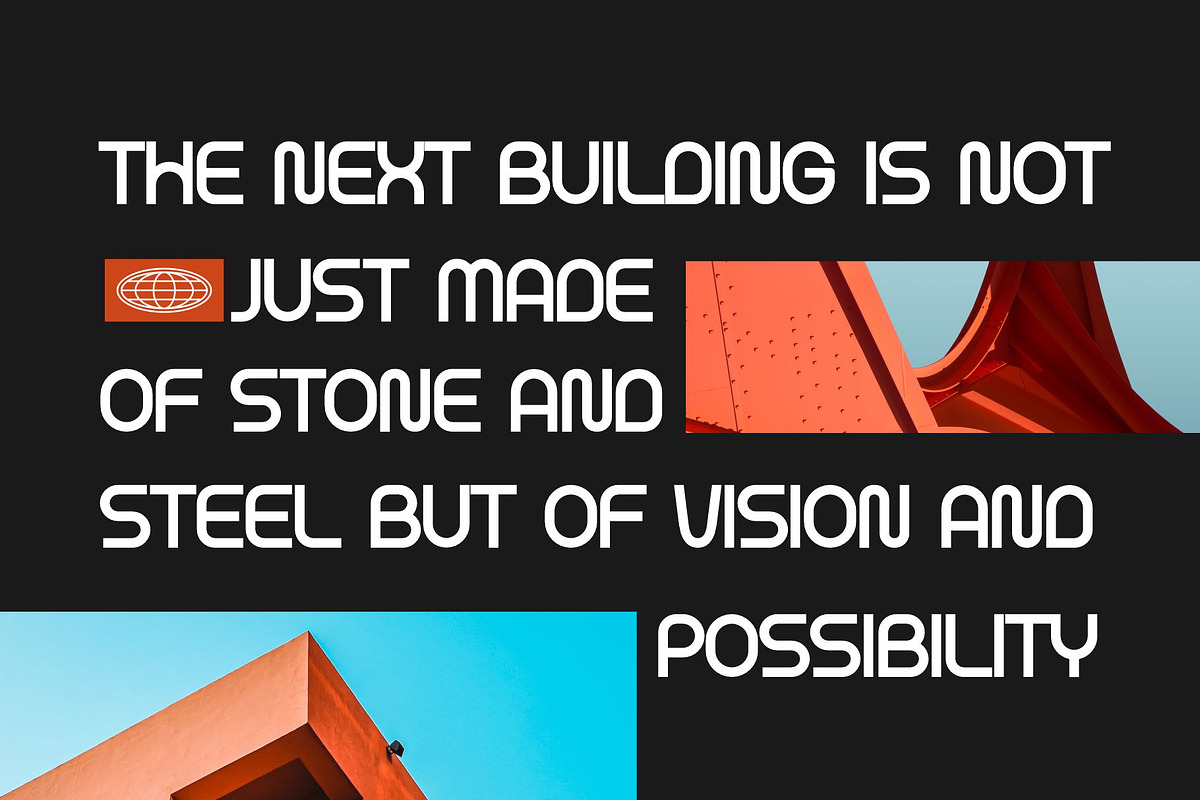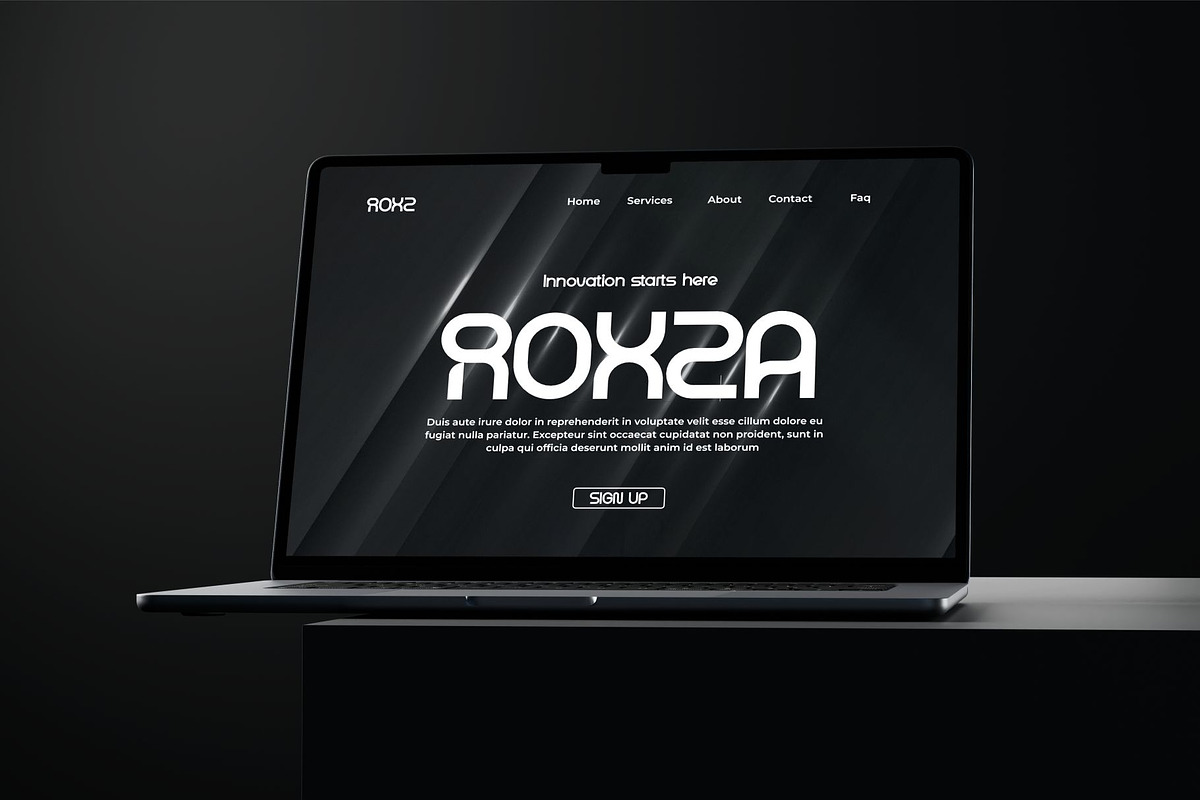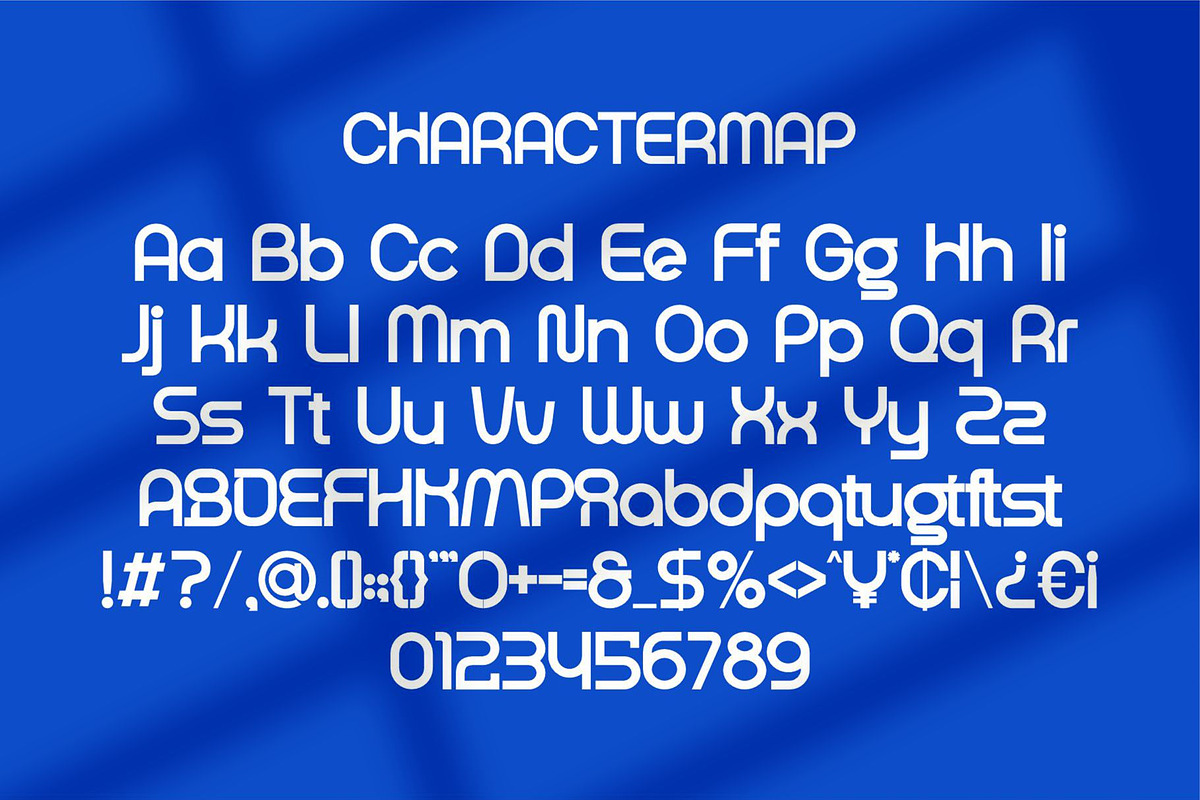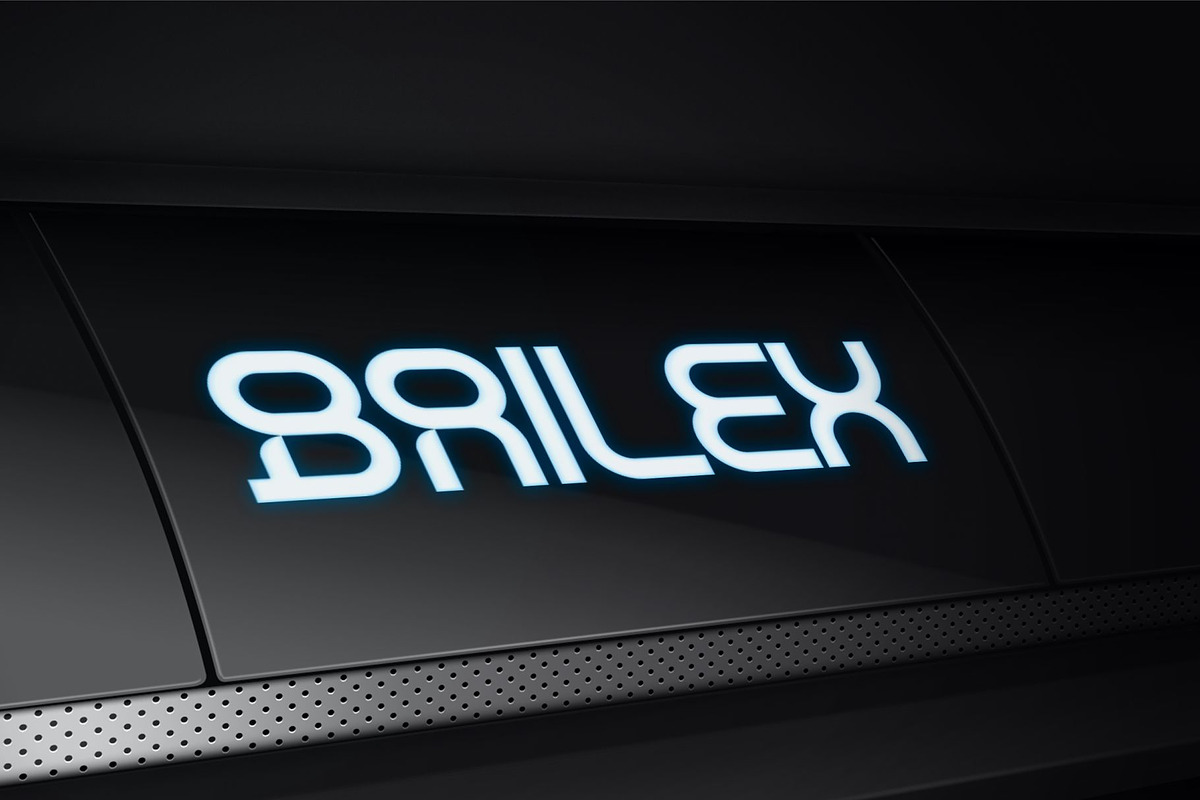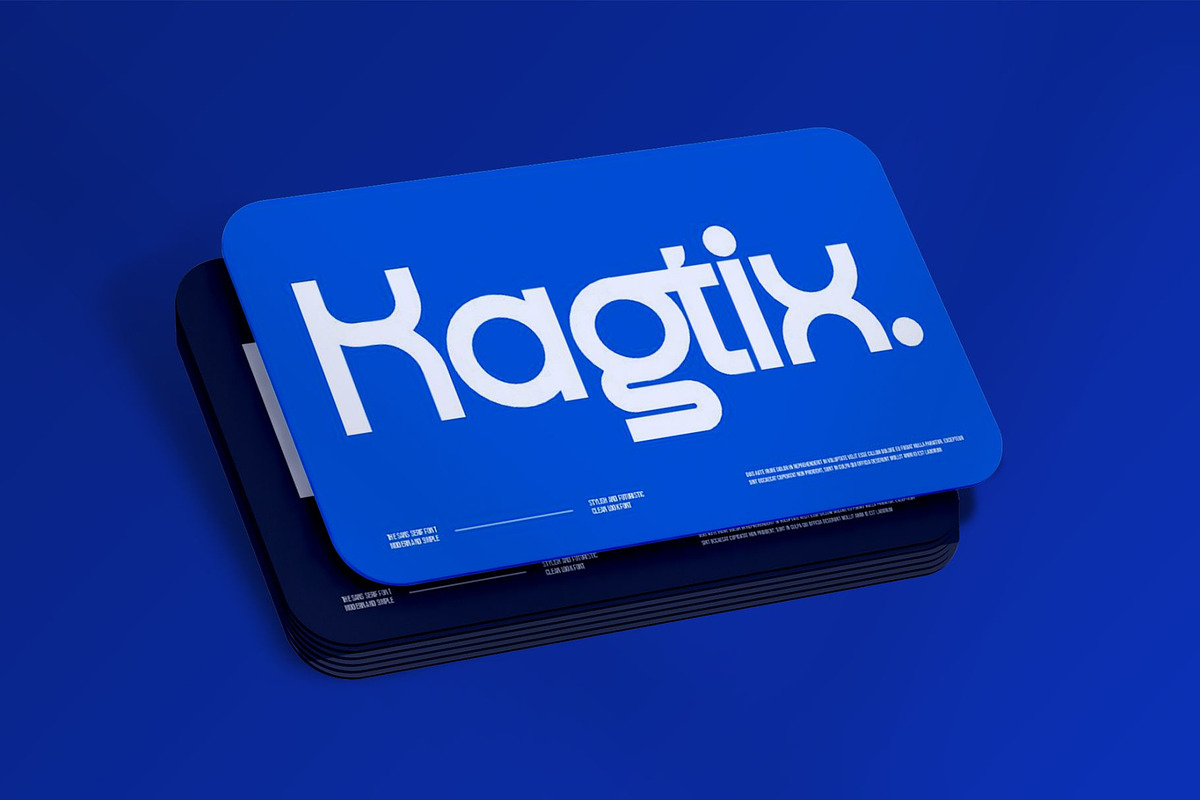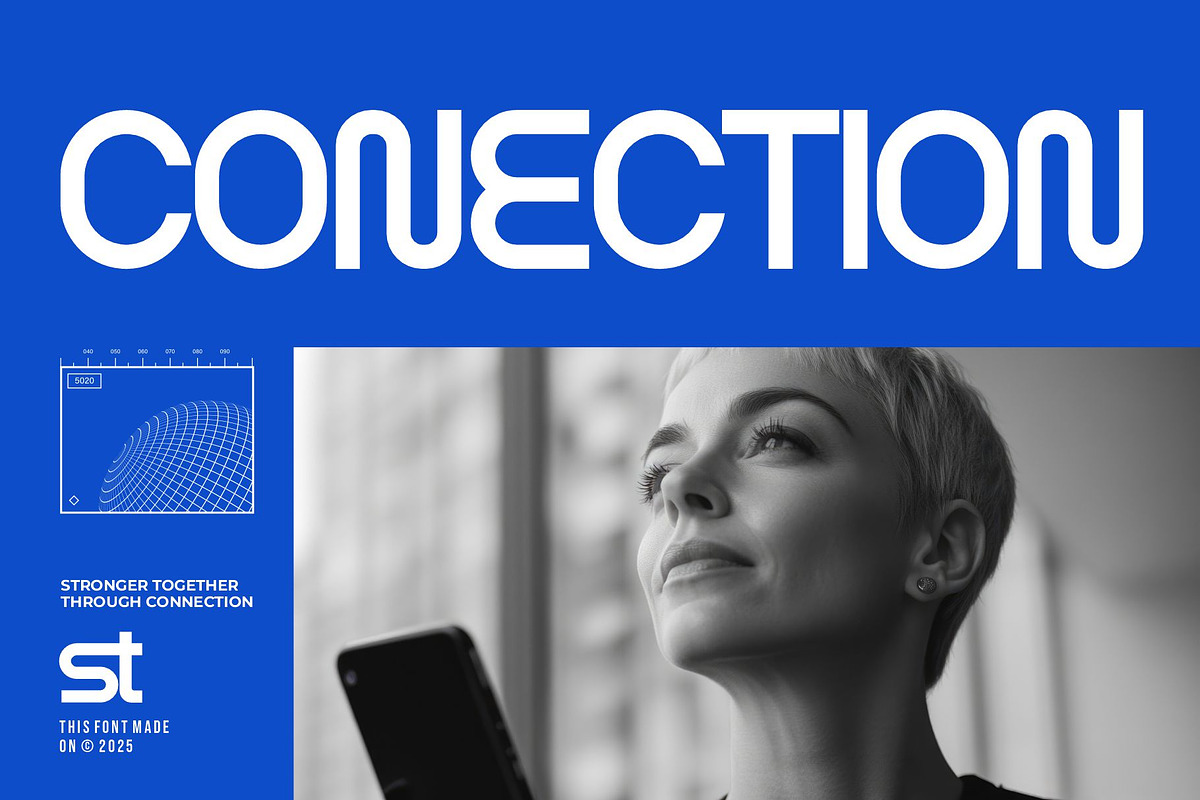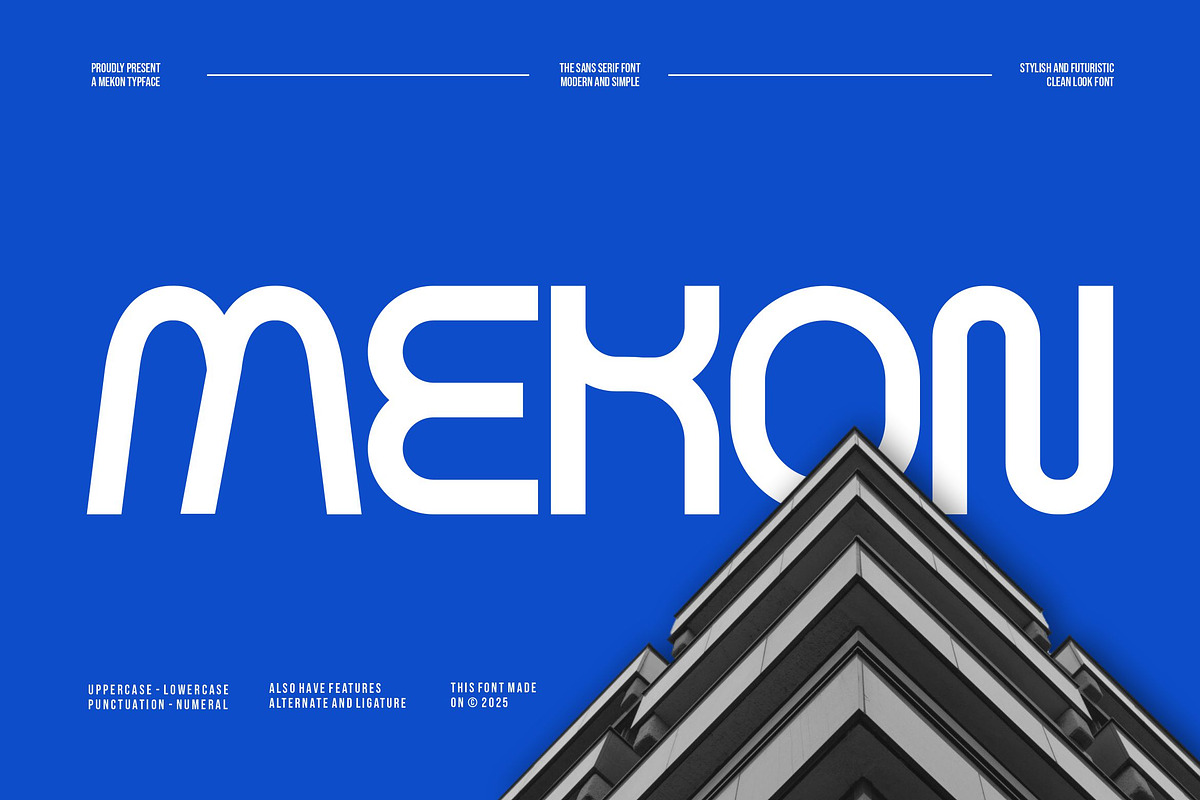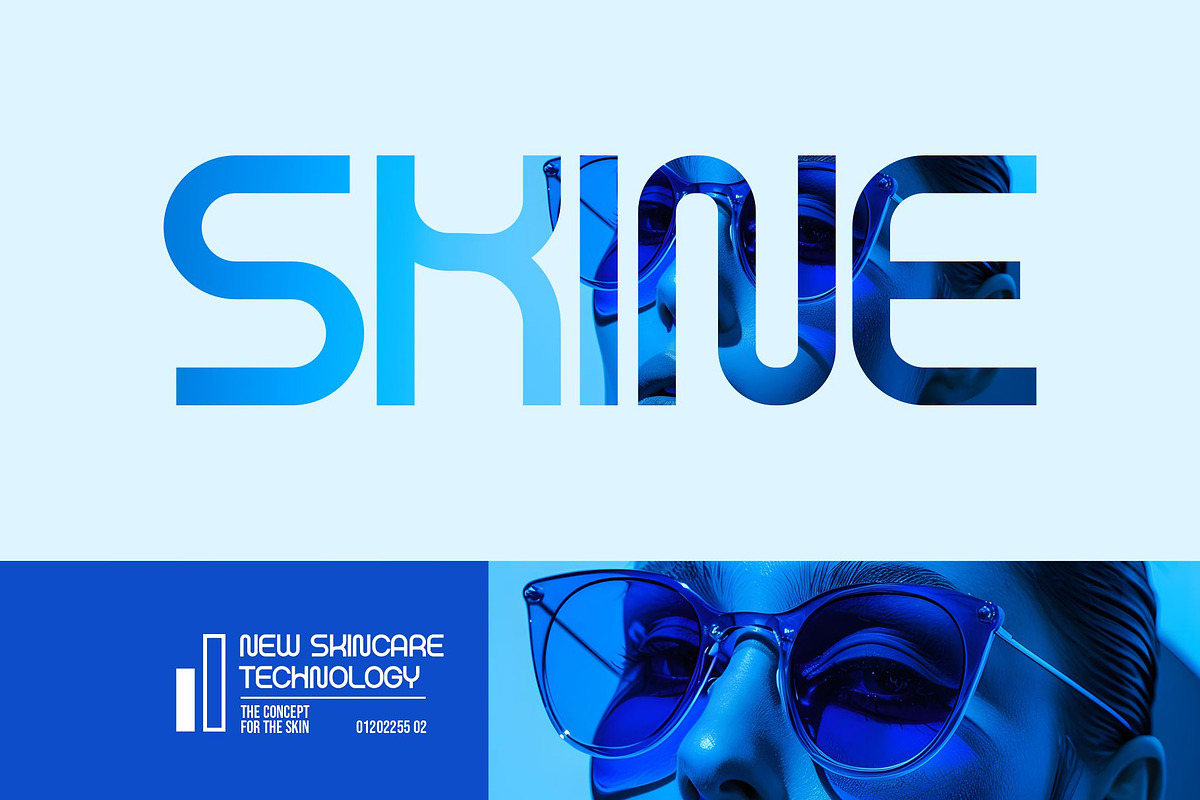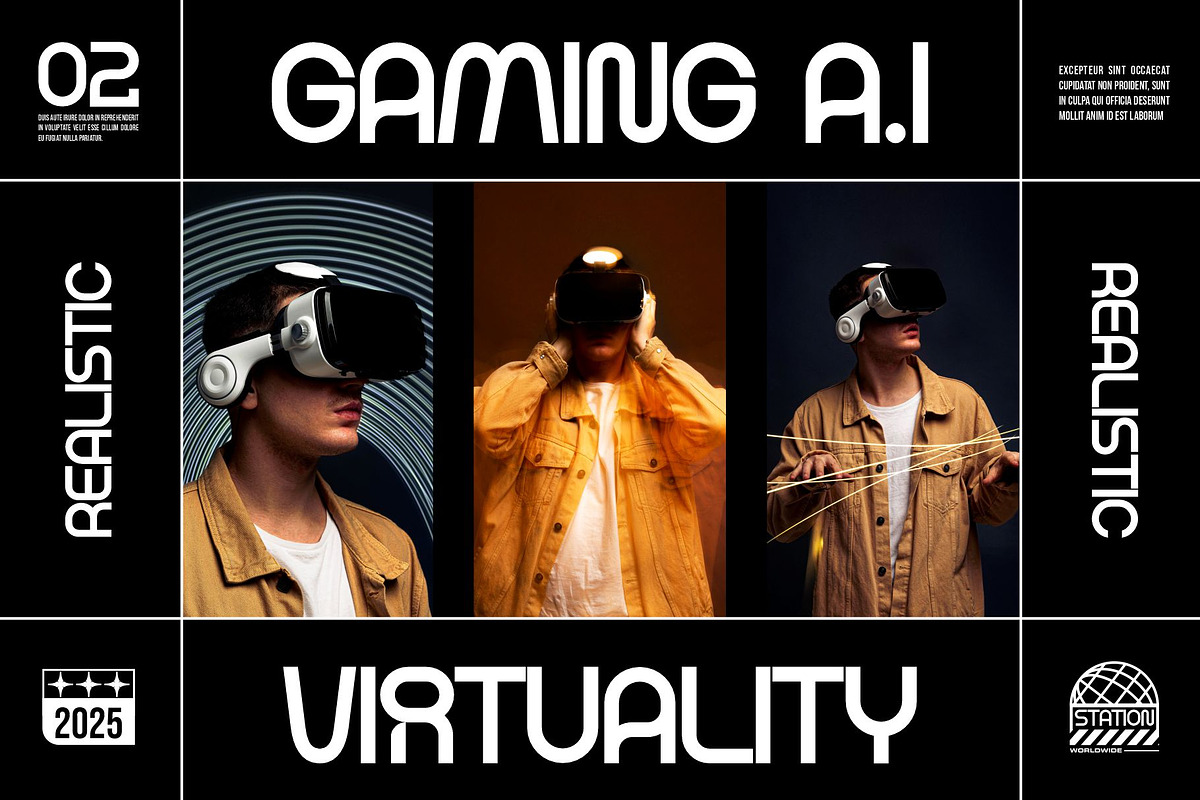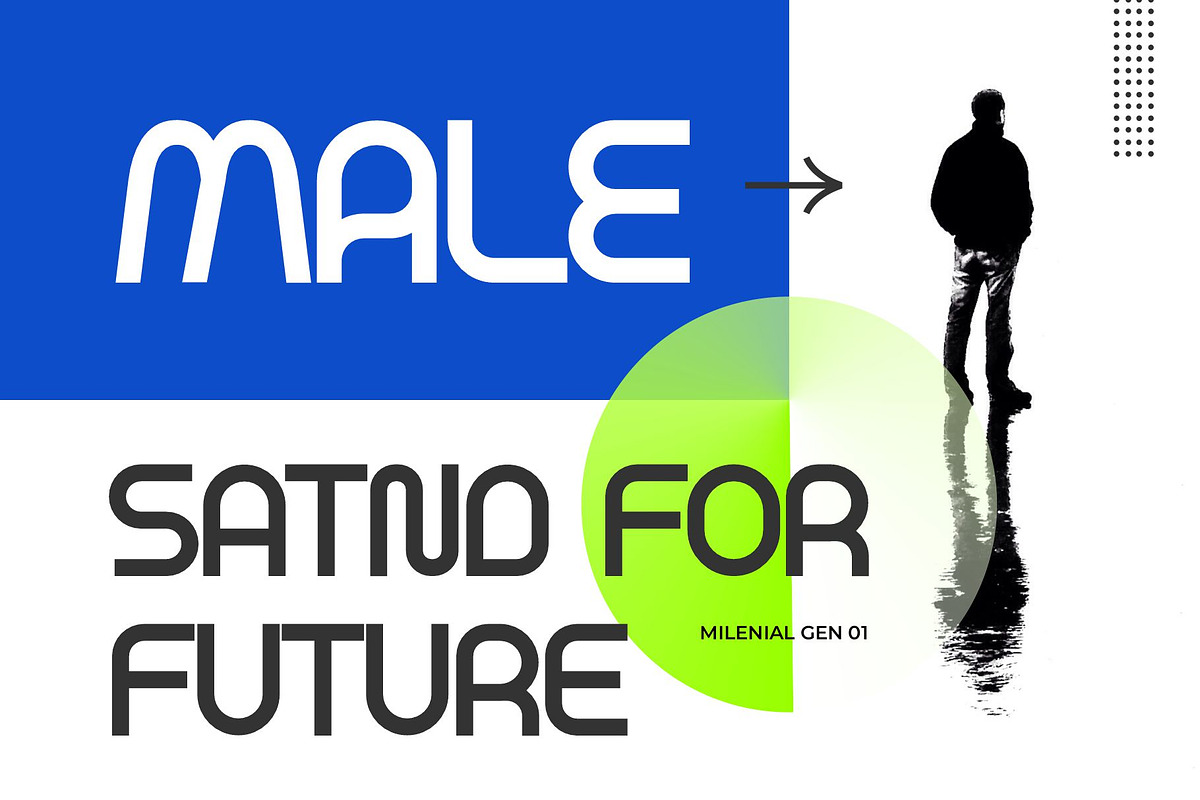
Mekon || Modern Display Sans Serif
Introducing Mekon is a modern futuristic sans serif font is sleek, bold, and forward-looking. It combines clean geometric lines with sharp angles or smooth curves, creating a sense of innovation and progress. Designed to feel advanced yet minimal, this font captures the spirit of technology, speed, and the future. Perfect for digital interfaces, branding, and visionary projects, it communicates clarity, strength, and a futuristic edge.